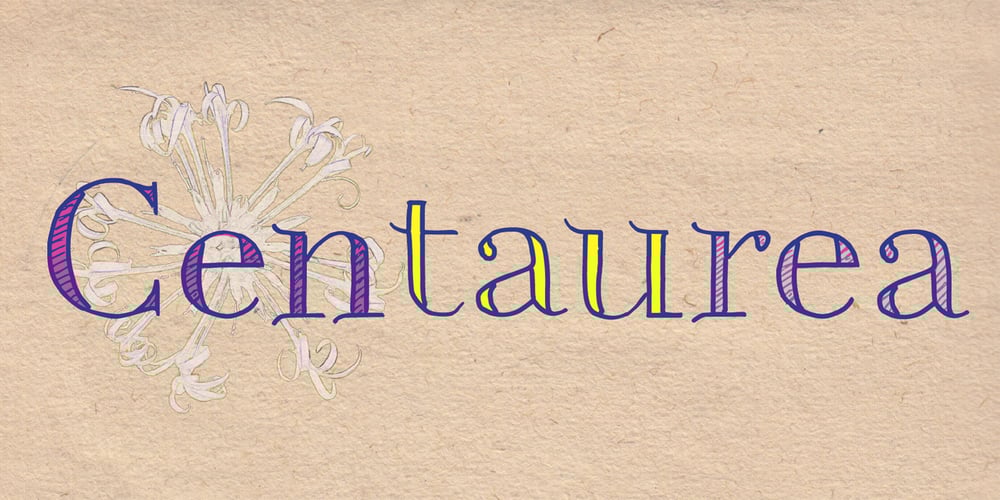
Centaurea Font Family was designed by Jean Boyault and published by JBFoundry. Centaurea contains 4 styles and family package options. The Centaurea typeface family is based on a didone with curved serifs. The Original style is legible and adapted to small sizes. The Sketch, Outline and Plain styles allow originality and creativity. Twenty stylistic sets allow the mixture of styles while keeping kerning steady. Overlapping allows the creation of unusual and original effects.